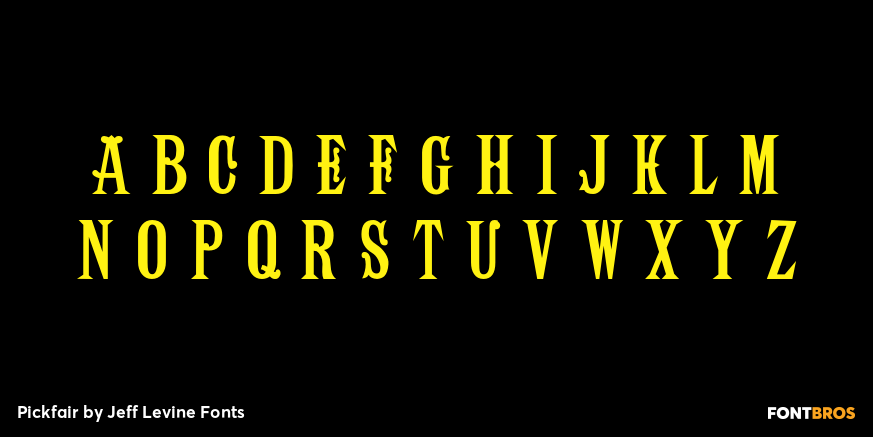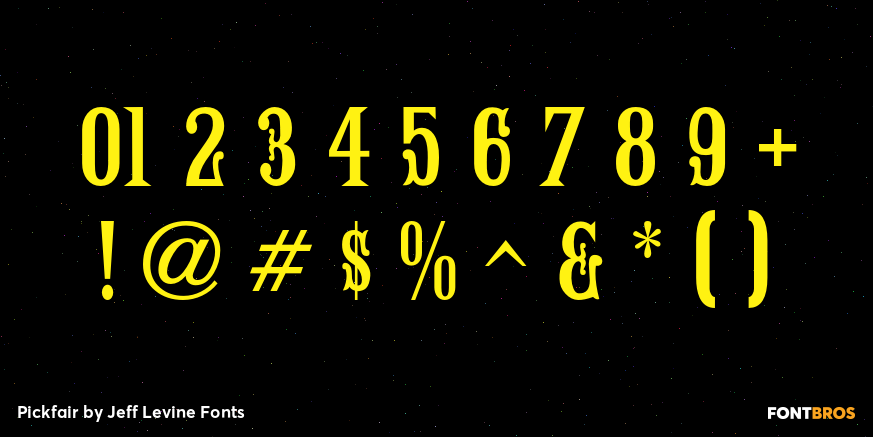
Pickfair
Pickfair JNL is based on the vintage wood type Vandenburgh Tuscan (circa 1867), and gets its name from the mansion owned by Douglas Fairbanks and Mary Pickford – two of the founding partners of United Artists movie studios.